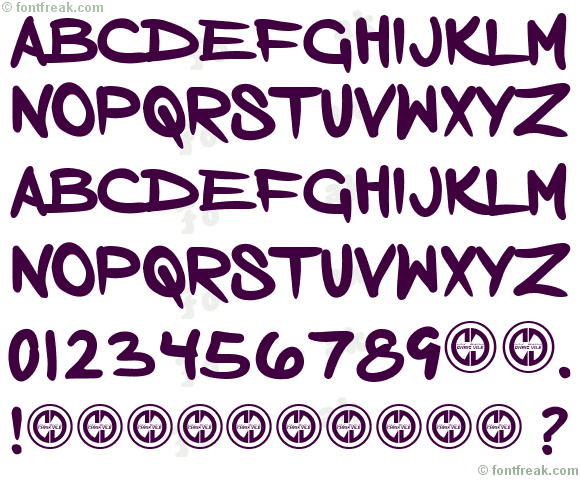
Born Addict
About Born Addict
The Born Addict font, designed by Chris Vile, is a striking display typeface that captures attention with its unique character. This font features bold, rounded letters that exude a playful yet edgy vibe, making it perfect for a variety of creative projects. The stroke weight is consistent throughout, providing a strong visual presence, while the lack of sharp angles contributes to its approachable aesthetic. The spacing between characters is well-balanced, ensuring readability while maintaining a dynamic flow.
Born Addict shines in various applications, particularly in areas where a bold statement is needed. It is ideal for wedding invitations, where its spirited style can complement a modern celebration, as well as for movie posters that require a distinctive touch to attract an audience. Restaurant menus can benefit from its lively appearance, turning a simple list of dishes into an engaging visual experience. Additionally, this font is excellent for branding efforts, offering small business owners a unique identity that stands out in crowded markets.
What sets the Born Addict font apart is its ability to blend boldness with a playful spirit, making it versatile enough for both formal and informal settings. Whether you're designing a logo, crafting an event invitation, or creating digital content, the Born Addict font free download provides a refreshing option that captures attention and leaves a lasting impression.